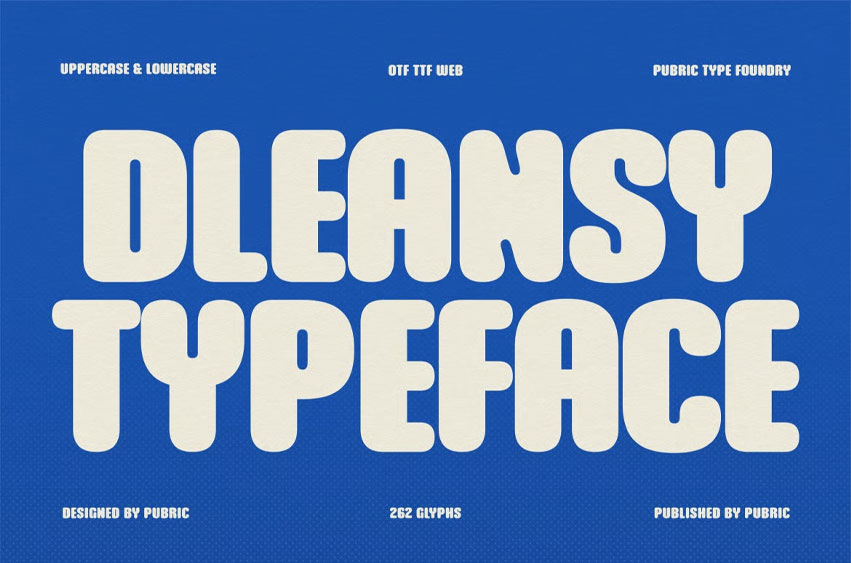
Dleansy Font
Dleansy Font is a bold, condensed, rounded display font that blends modern design with retro charm. Its clean yet energetic form exudes a friendly and playful personality, making it perfect for eye-catching designs that want to stand out with confidence.
Ideal for headlines, logos, editorials, packaging, quotes, films, games, album covers, books, and promotional materials. This font ensures your design stands out in any setting.